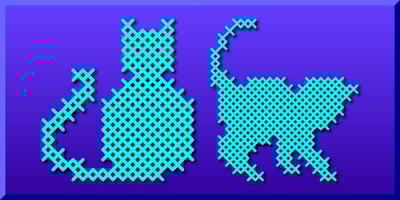
Cross Stitch Ornaments Font Family was designed by Gerald Gallo and published by Gerald Gallo. Cross Stitch Ornaments contains 1 styles and family package options. Cross Stitch Ornaments is a collection of classic stitched geometric shapes, plants, birds, and animals. There is an assortment of 47 ornaments located under the character set keys. All ornaments that are asymmetrical have a flopped version located under the shift+character key.